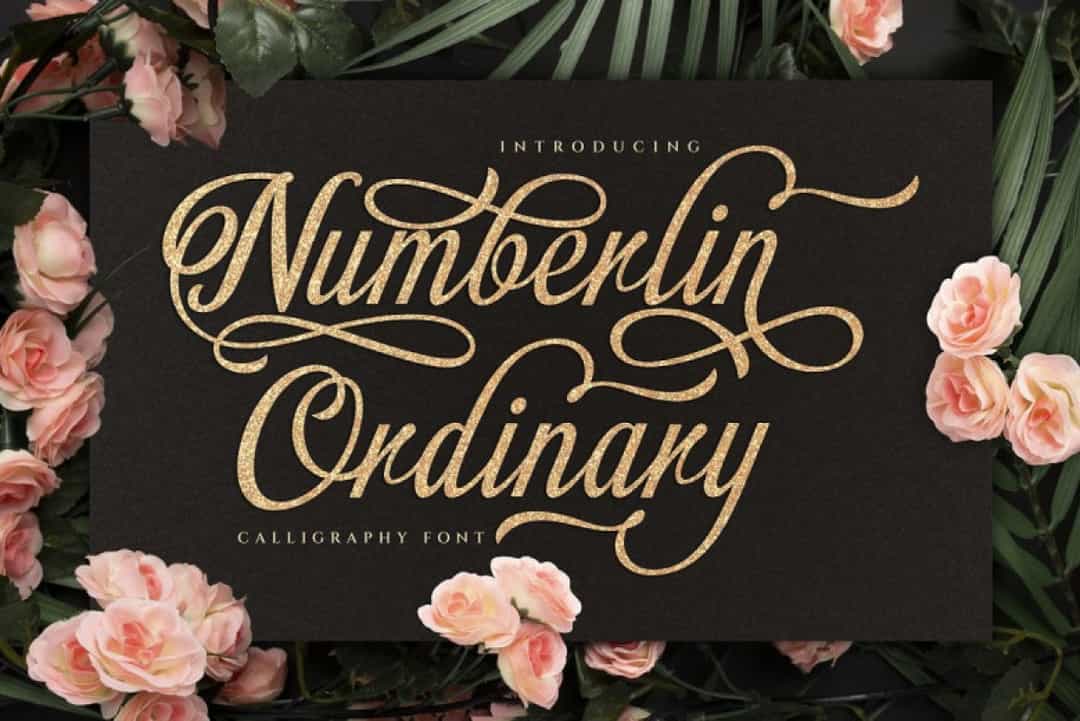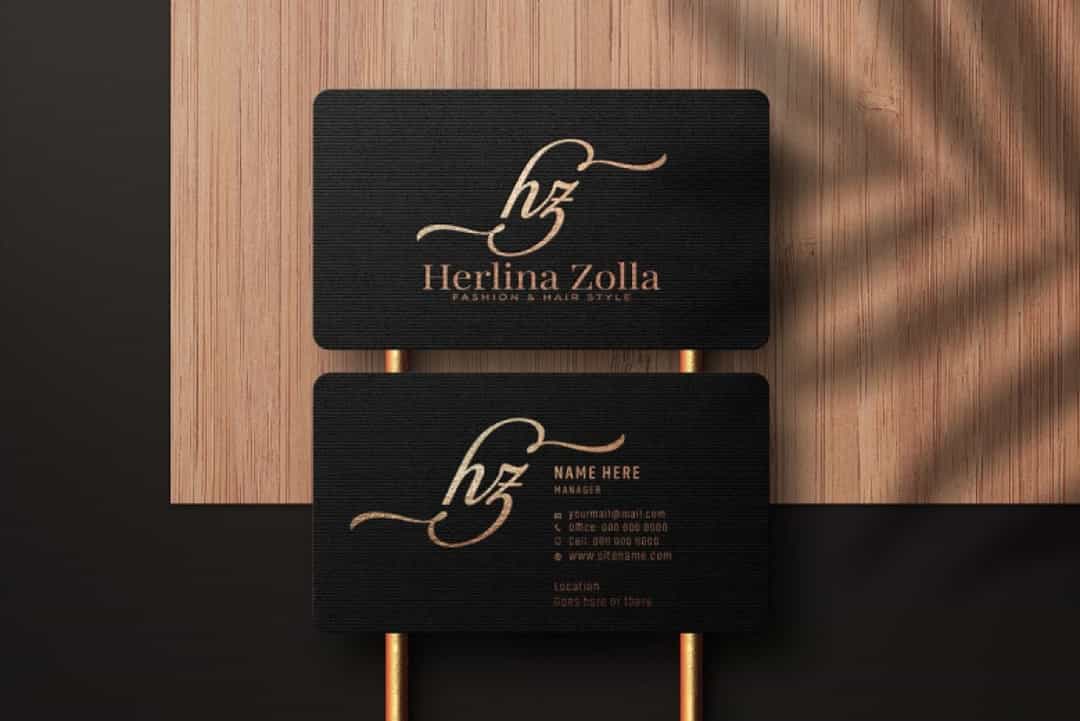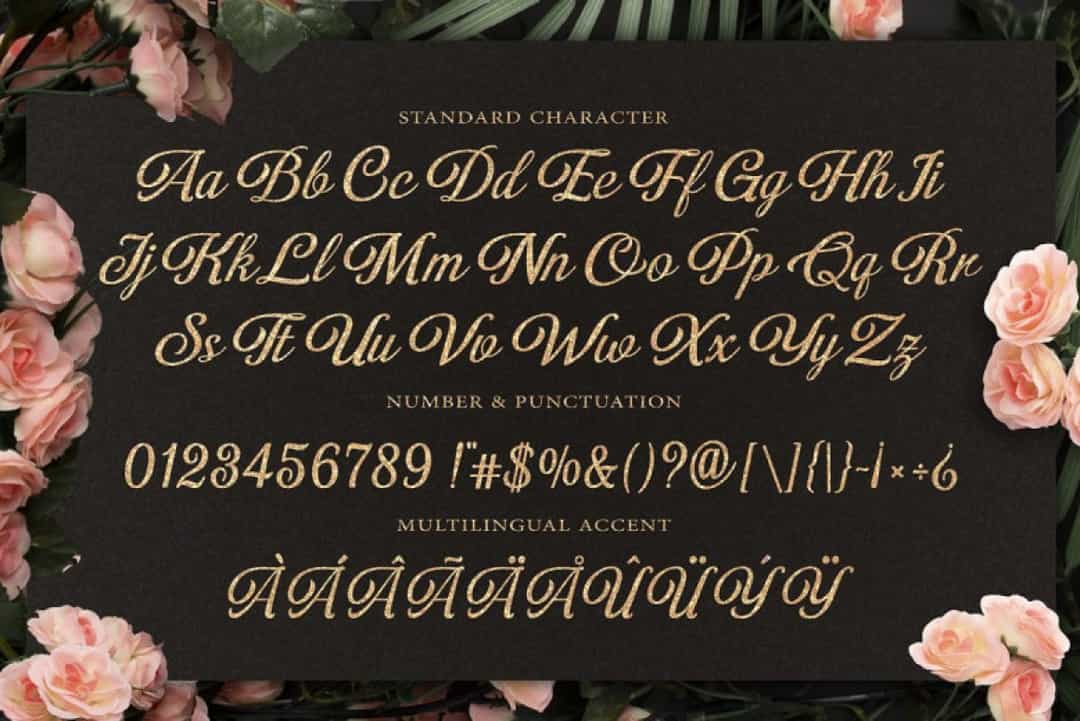
Numberline Ordinary is a contemporary script calligraphy font designed specifically for modern use. Perfect for weddings, invitations, birthday cards and fashion products as well as feminine beauty salon packaging of products with quotes as well as product designs or labels from product designs or crafters for use as watermarks, t-shirt watermarks photography logos branding etc – Numberline Ordinary makes an eye-catching statement in any setting!